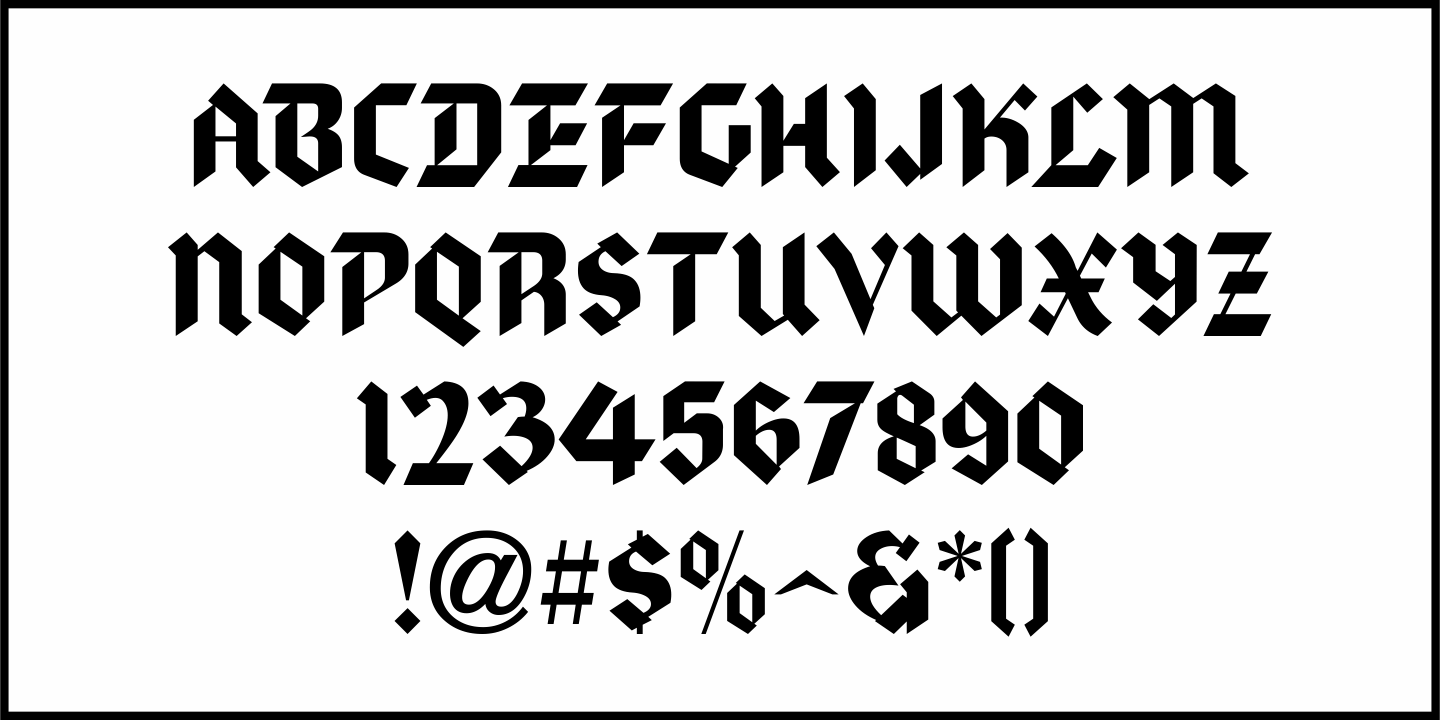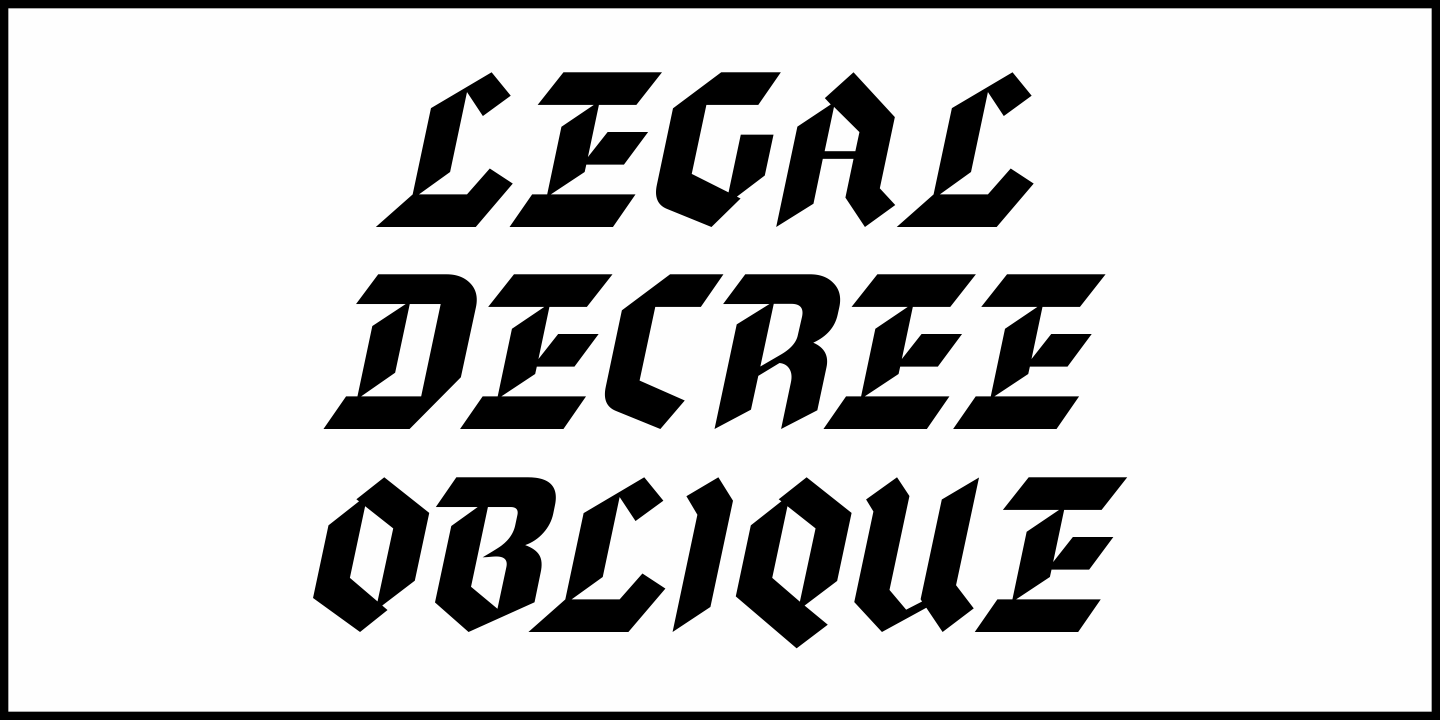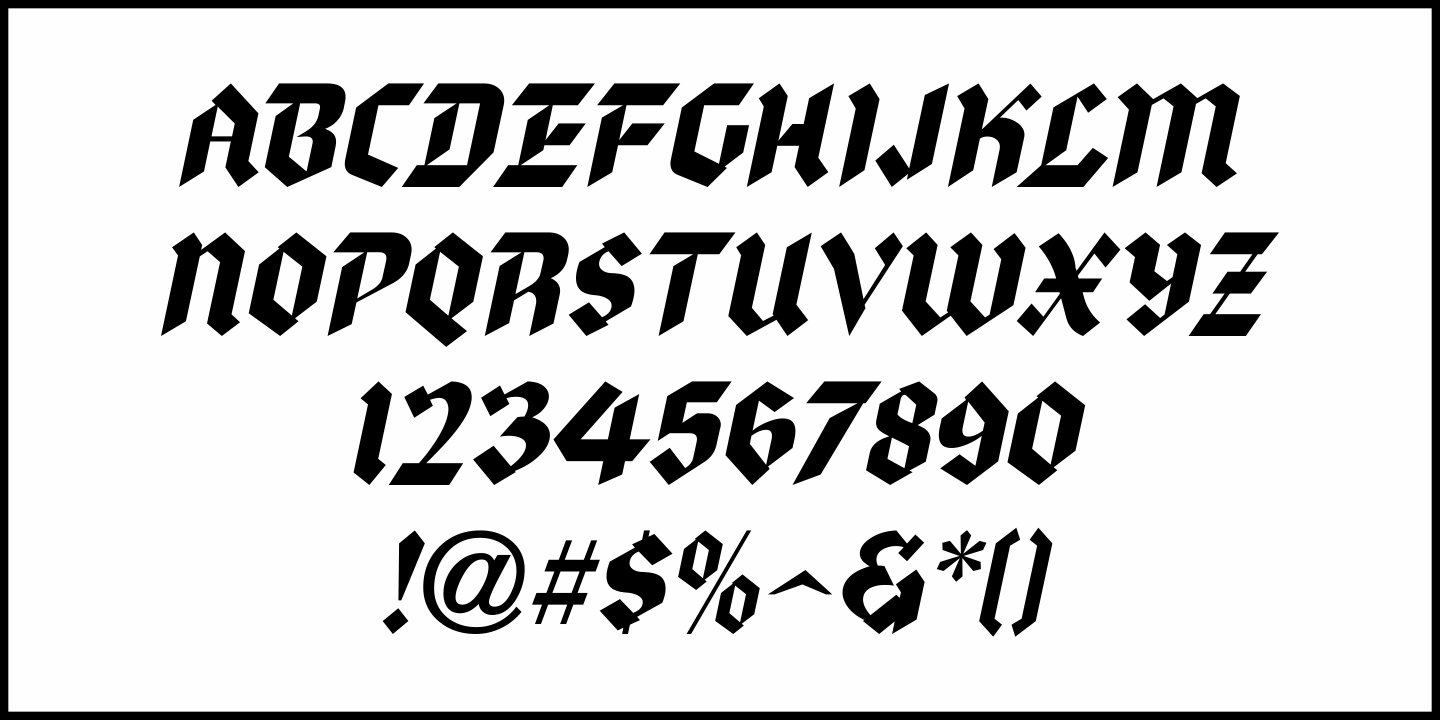
Legal Decree
An example of the Old English/Germanic style text lettering was shown in the 1938 book "Letters and Lettering" by Paul Carlyle and Guy Oring under what they called the "Anglo Category".
Legal Decree JNL is the digital version of this type design and is available in both regular and oblique versions.
Legal Decree by Jeff Levine Fonts